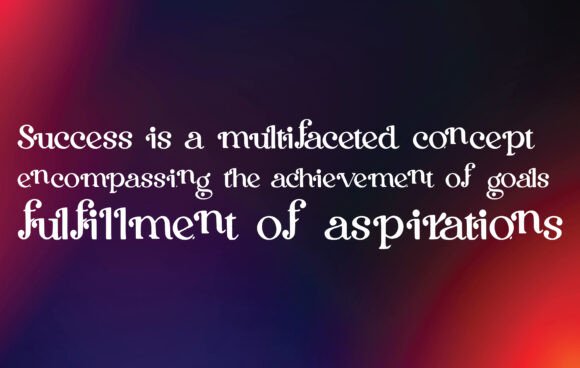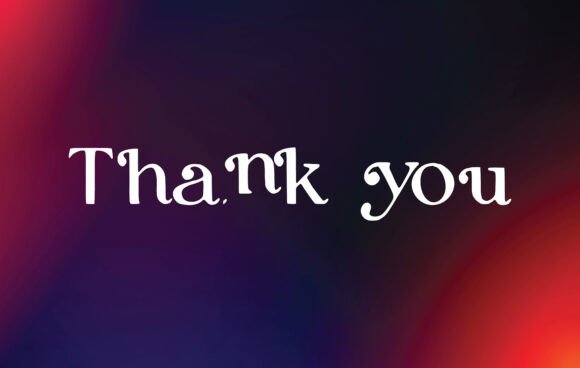
Aster Font: Elevate Your Creative Projects with this Lovely Handwritten Font
Are you a designer, crafty person, or simply someone who appreciates beautiful typography? Look no further than the Aster Font, a stunning handwritten font that can take your creative ideas to new heights. With its unique charm and versatility, Aster Font is the perfect choice for creating eye-catching logos, branding, and quotes that leave a lasting impression.
What Makes Aster Font So Special?
Aster Font is a meticulously crafted handwritten font that boasts a distinctive, elegant feel. Its beautiful lettering and flowing curves make it an excellent choice for a wide range of creative projects, from logo design and branding to social media graphics, posters, and more. Whether you’re looking to add a touch of sophistication or a dash of playfulness to your designs, Aster Font is sure to impress.
Key Features of Aster Font
- Unique and Handwritten: Aster Font is a one-of-a-kind, handwritten font that adds a personal touch to your designs.
- Versatile: Perfect for a wide range of creative projects, from logos and branding to quotes, posters, and social media graphics.
- Elegant and Sophisticated: Aster Font’s flowing curves and beautiful lettering make it an excellent choice for designs that require a touch of sophistication.
- Easy to Read: Despite its elegant feel, Aster Font is highly legible, making it perfect for designs that require a clear message.
Why Choose Aster Font?
With so many fonts available, why choose Aster Font? Here are just a few reasons why designers and crafters love this beautiful handwritten font:
- Stand Out from the Crowd: Aster Font’s unique charm and character help your designs stand out in a crowded marketplace.
- Perfect for Branding: Create a consistent brand identity with Aster Font, which is perfect for logos, business cards, and other marketing materials.
- Easy to Pair: Aster Font pairs well with a wide range of other fonts, making it easy to create stunning font combinations.
- High-Quality Design: Aster Font is meticulously crafted to ensure that every letter and curve is perfect, giving your designs a professional finish.
How to Use Aster Font in Your Designs
Ready to get started with Aster Font? Here are a few ideas to get you started:
- Logo Design: Use Aster Font to create a stunning logo that showcases your brand’s personality.
- Branding: Create a consistent brand identity with Aster Font, using it across all your marketing materials.
- Quotes and Posters: Add a touch of elegance to your quotes and posters with Aster Font.
- Social Media Graphics: Use Aster Font to create eye-catching social media graphics that grab attention.
In conclusion, Aster Font is a beautiful handwritten font that has the potential to take your creative ideas to new heights. With its unique charm, versatility, and high-quality design, it’s the perfect choice for designers, crafters, and anyone looking to add a touch of elegance to their designs. Whether you’re creating logos, branding, quotes, or social media graphics, Aster Font is sure to impress.